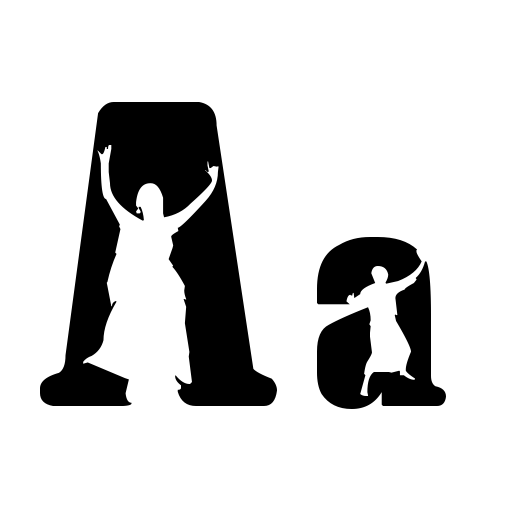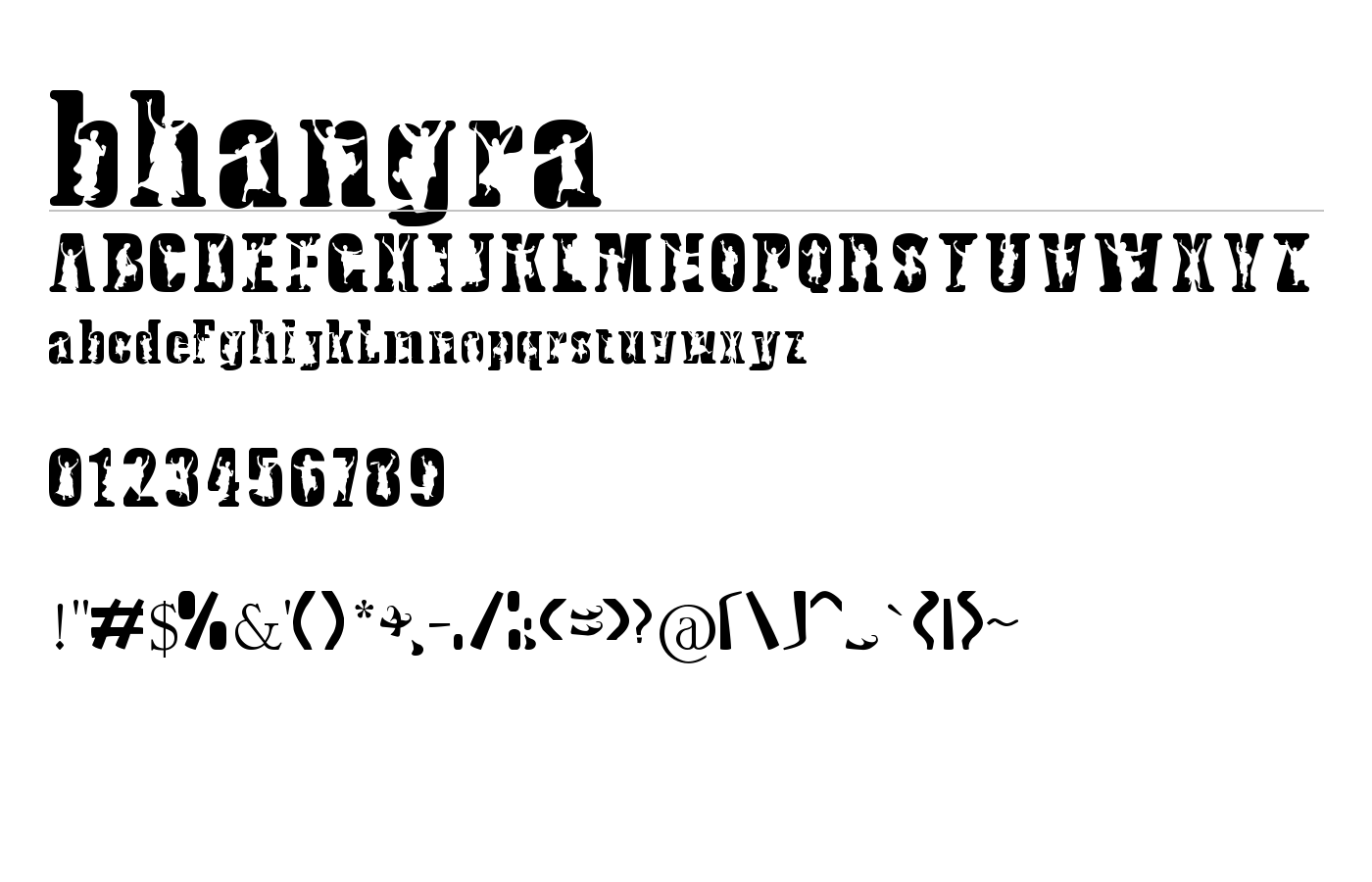
Bhangra is a bold, condensed slab serif font that combines strong, blocky letterforms with playful silhouettes of dancers integrated into each character, creating a lively and festive vibe. Its high contrast and quirky design make it perfect for vibrant event posters, cultural festivals, or branding that seeks to convey energy and celebration with a unique artistic flair. This font stands out best in headlines or decorative uses where a bold, spirited impression is desired.
bhangra Font